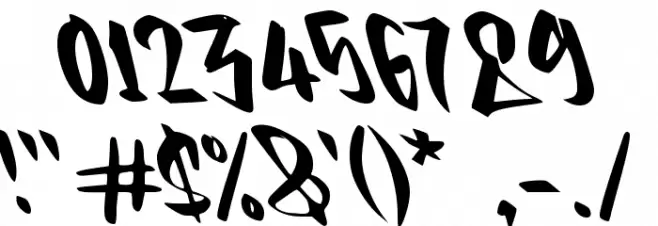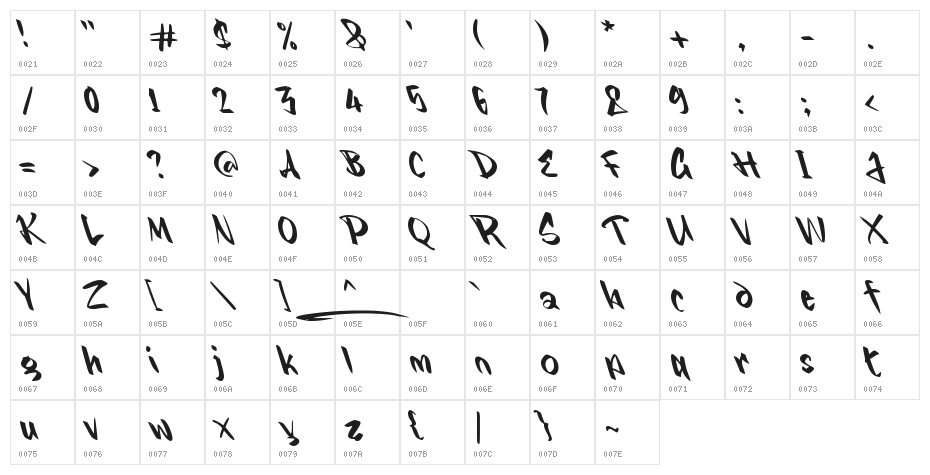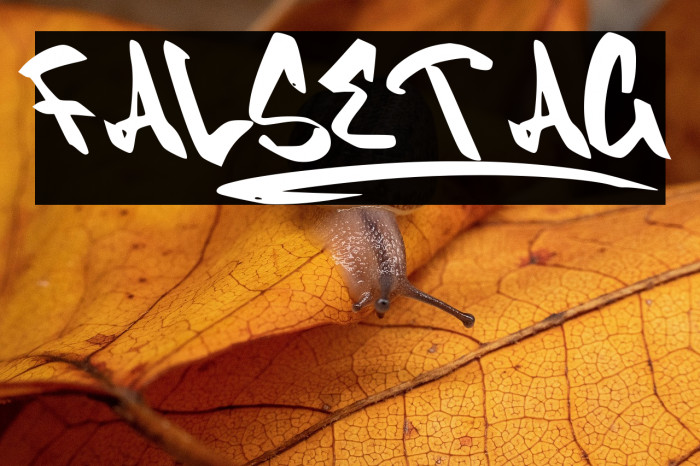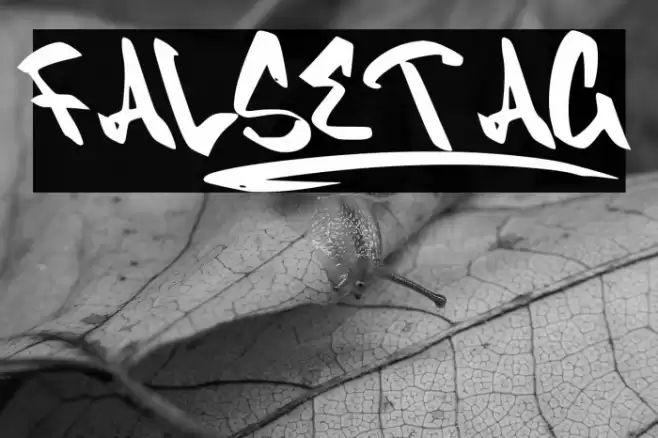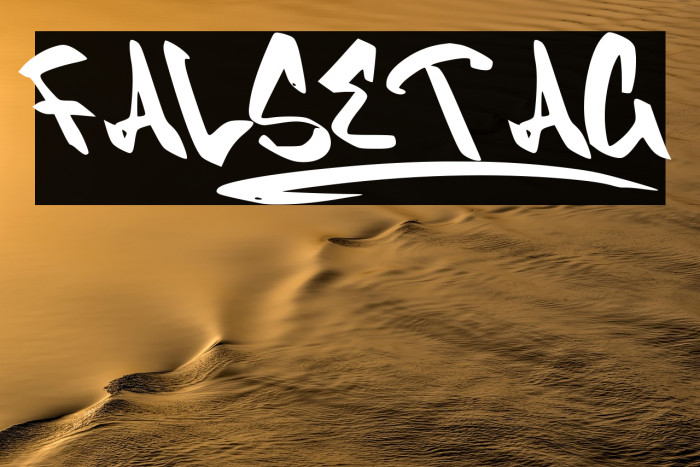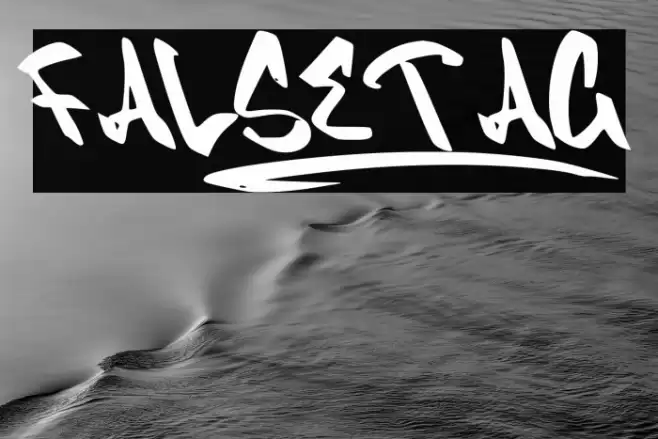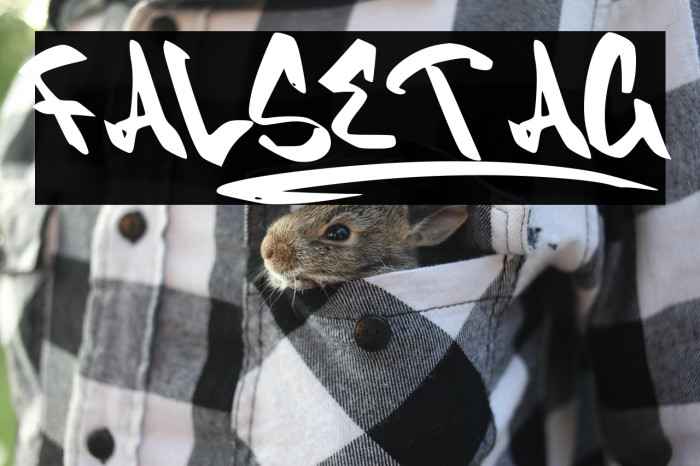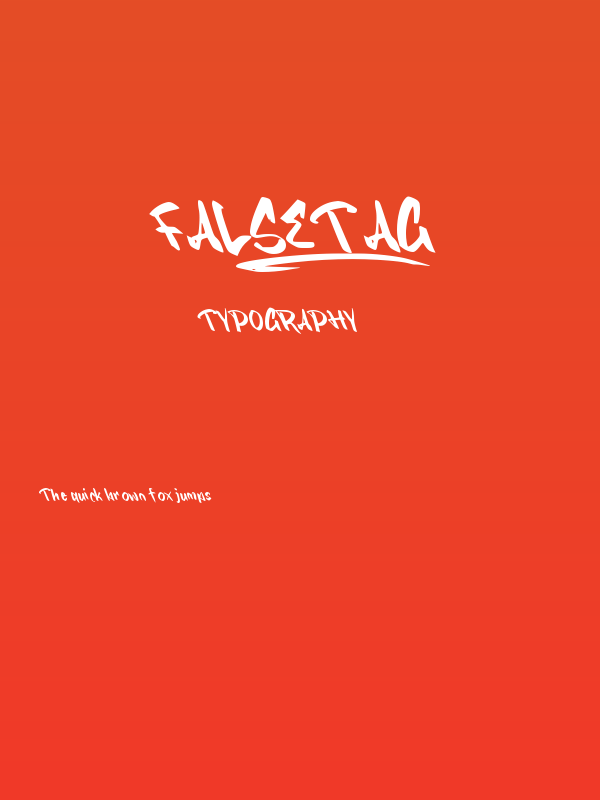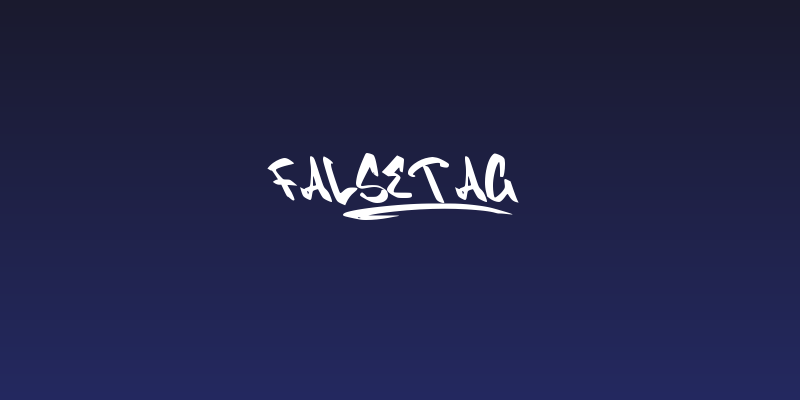
FALSETAG_ Font
FALSETAG_ Description
This font features a bold and dynamic style with a graffiti-like appearance. The letters are characterized by sharp angles and exaggerated curves, giving it a sense of movement and energy. The uppercase and lowercase letters maintain a consistent style, while the numbers and special characters complement the overall aesthetic. The font's design is eye-catching and unconventional, making it suitable for projects that require a strong visual impact. Its unique style is reminiscent of street art and urban culture, providing a modern and edgy feel.
| Overall Style | Modern, Urban |
| Proposed Projects | Ideal for street art designs, urban-themed posters, music album covers, and edgy branding projects. |